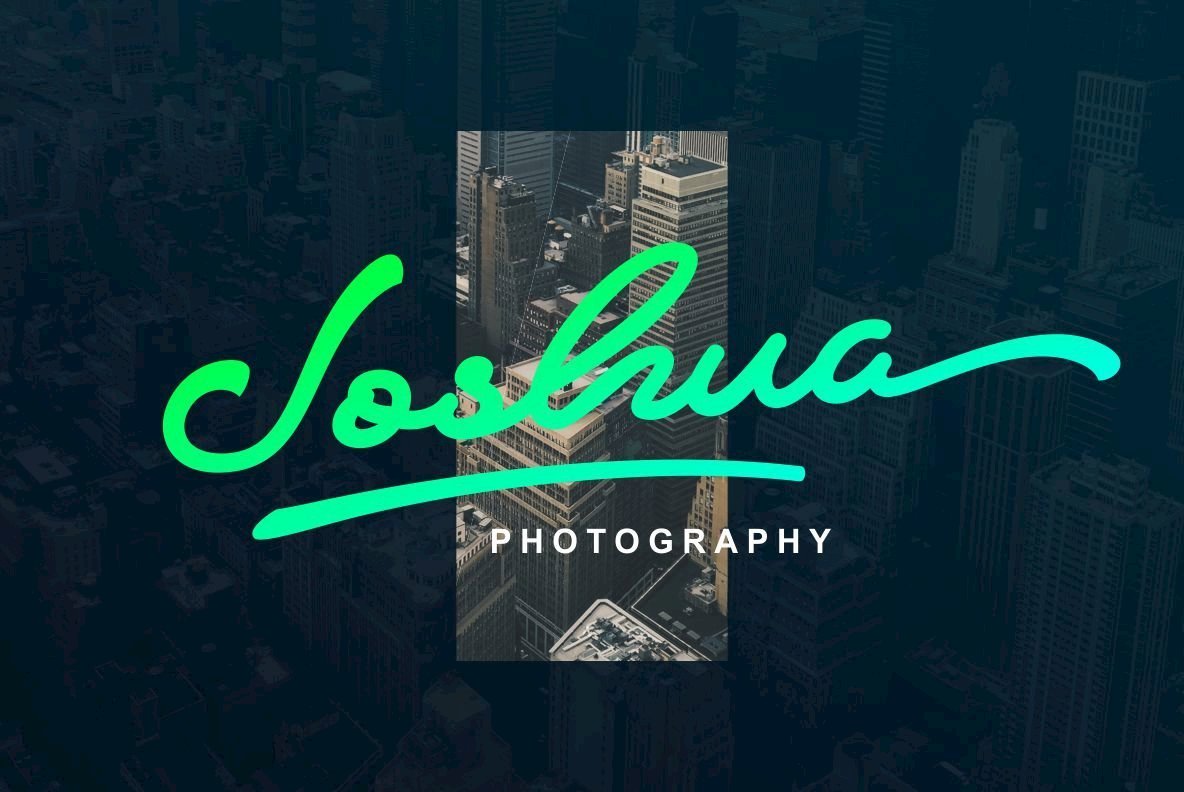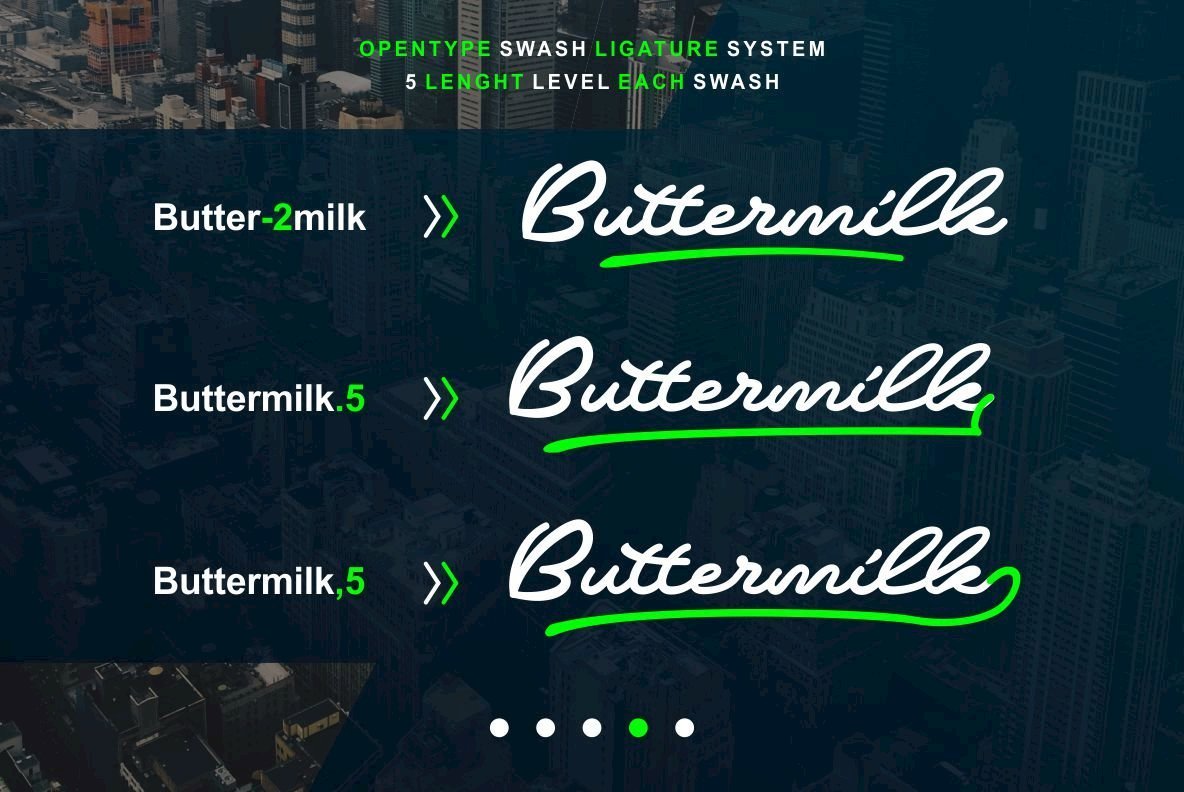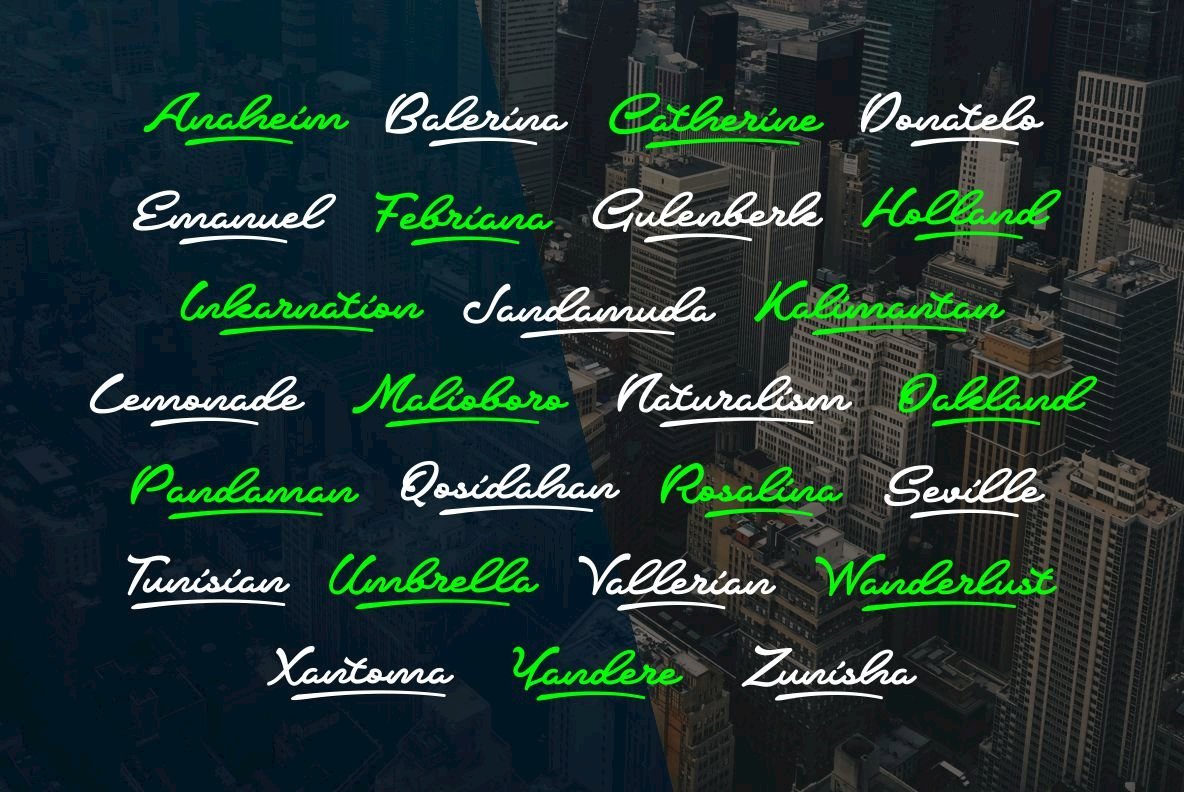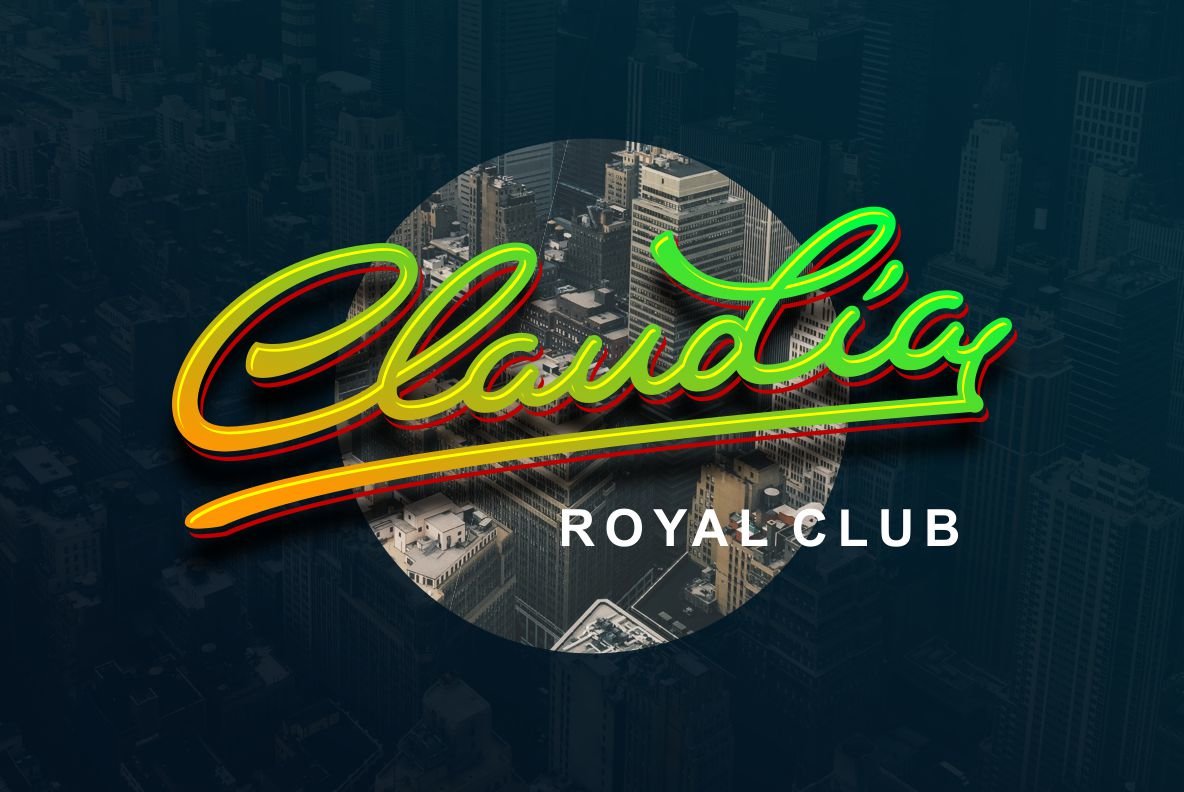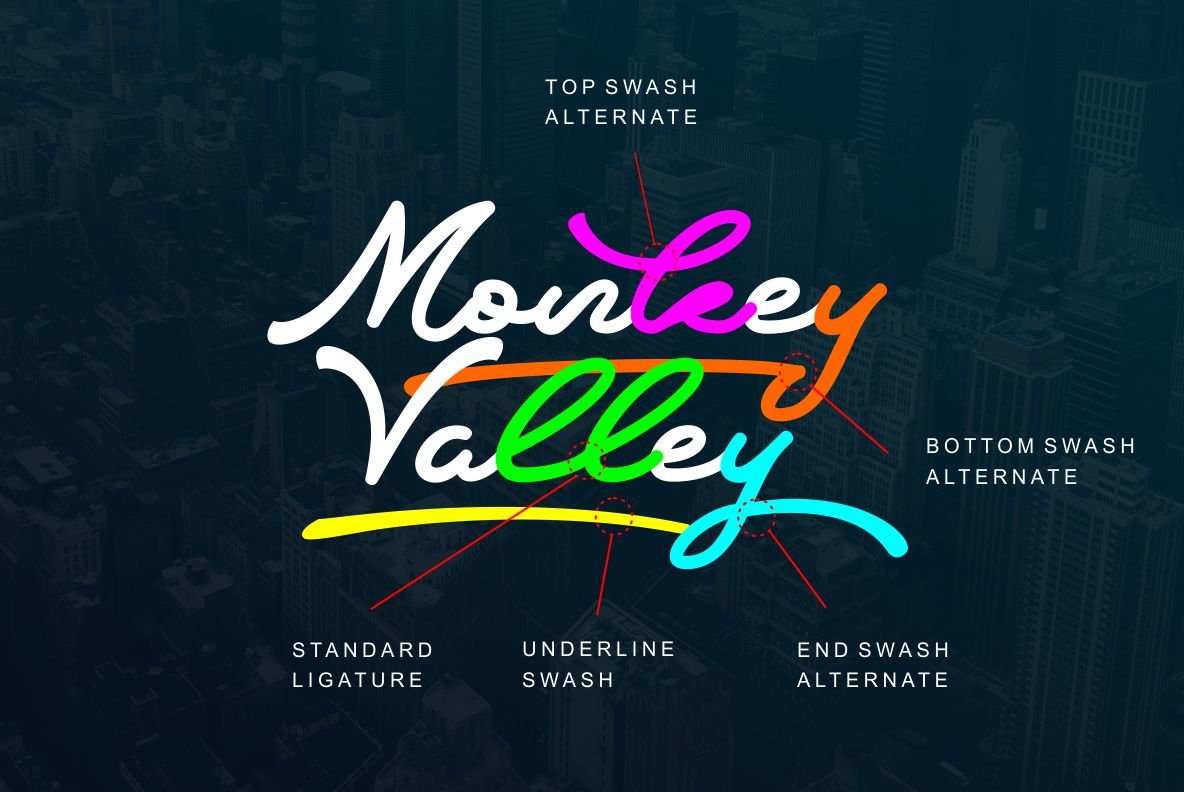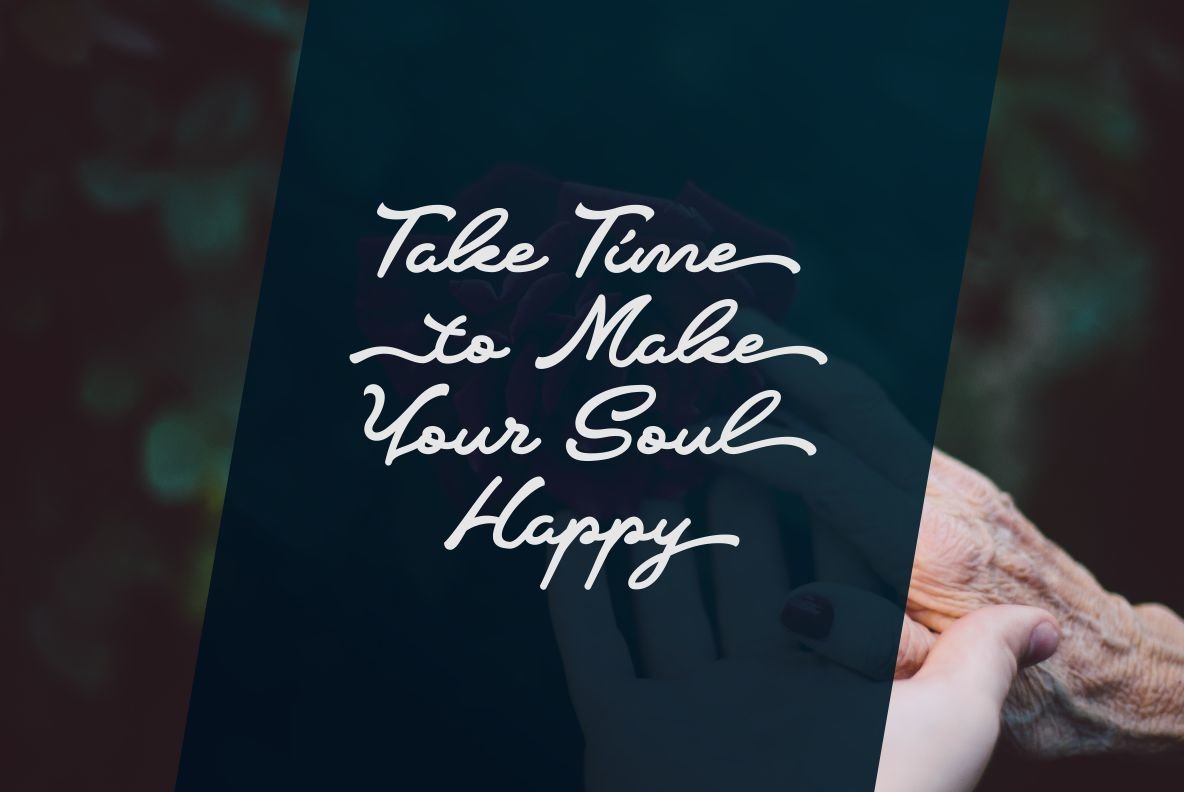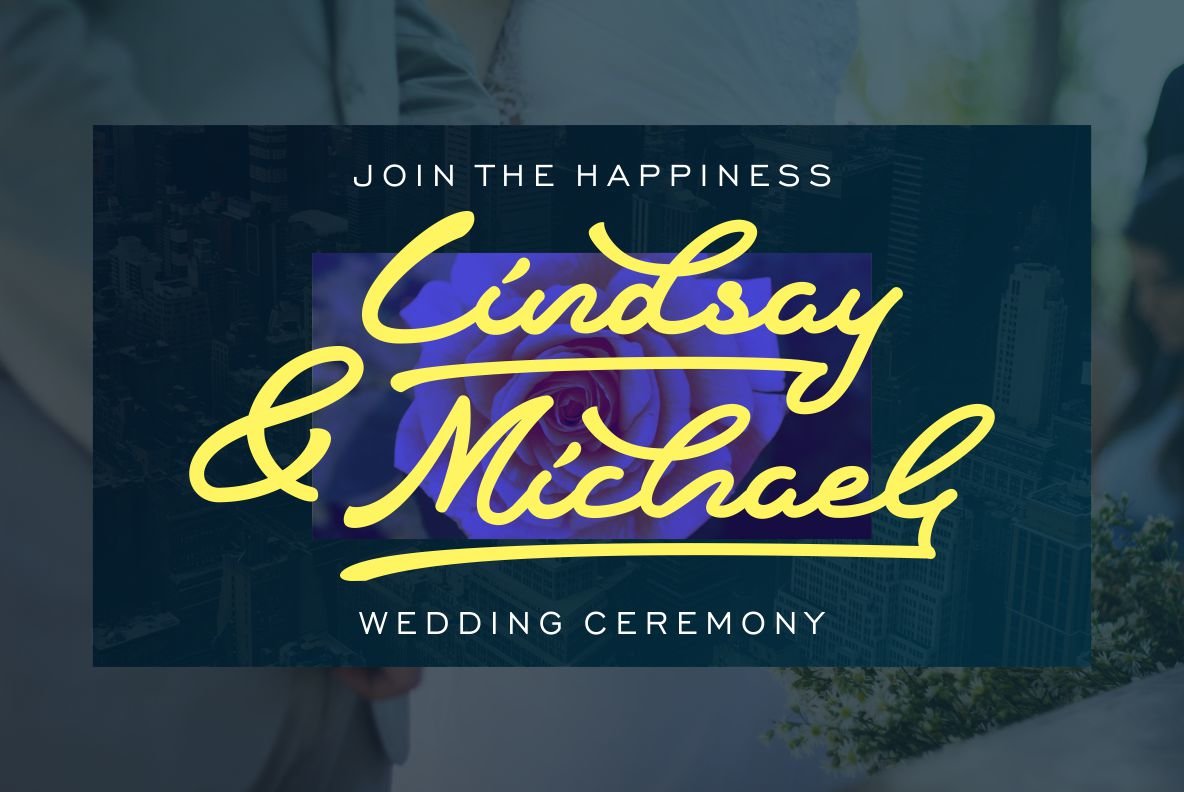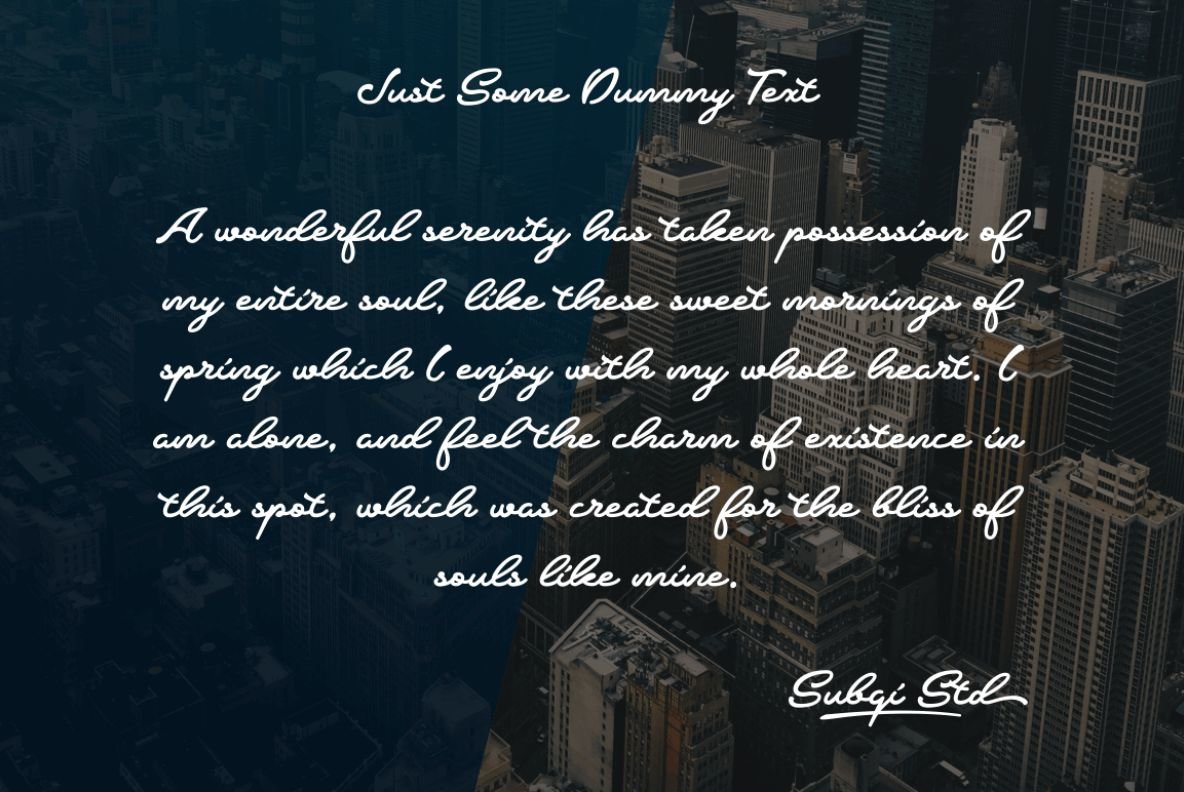
Crumble Script Font
The Crumble Script by Amir Subqi Setiaji emerges as a refined option for designers seeking a touch of elegance in their projects. Its clean lines and balanced curves make it an ideal choice for a range of applications, whether branding, invitations, or digital designs. With its modern, handcrafted aesthetic, this typeface bridges the gap between classic calligraphy and contemporary style.Crumble Script: Clean Handcrafted Typography